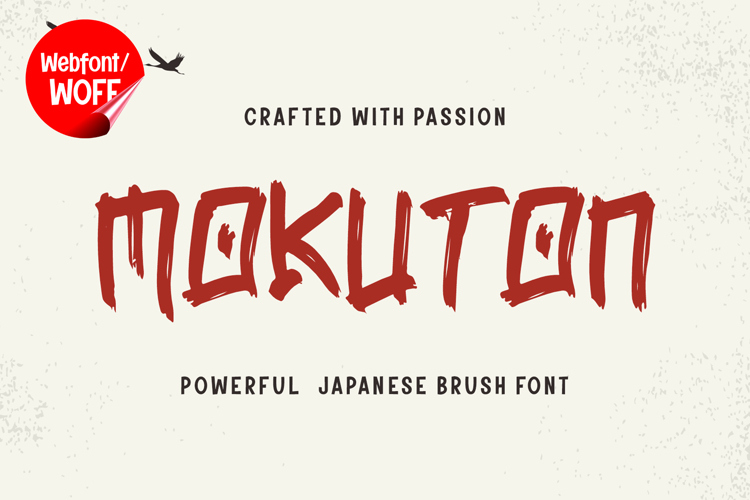
Mokuton Webfont | Japanese Brush Font for Websites
Mokuton Webfont is a bold Japanese handbrush typeface designed to bring expressive brush aesthetics into digital design. Inspired by traditional ink strokes and modern brush lettering, this font combines artistic texture with strong readability, making it an excellent choice for impactful web typography.
In web design, typography plays a crucial role in capturing attention and communicating brand identity. Mokuton is crafted as a display webfont, making it ideal for headlines, hero sections, banners, and promotional content. Its bold brush strokes create a powerful visual presence that instantly stands out.
The font includes uppercase and lowercase characters, offering flexibility for various text compositions. The natural brush style creates a dynamic flow between letters, adding movement and energy to the design. Numbers and punctuation are included and styled consistently with the overall brush aesthetic.
This webfont is ideal for creative websites, restaurant branding, portfolios, streetwear brands, and cultural-themed platforms. Its expressive style helps create a strong emotional connection with users, making the website feel more engaging and visually distinctive.
One of the key strengths of Mokuton in web design is its ability to function as a focal point. When used in headlines, it draws attention and guides users through the layout. This makes it highly effective for call-to-action sections and featured content.
Despite its artistic style, Mokuton maintains readability when used at display sizes. Designers can pair it with simple fonts for body text to create a balanced layout and improve user experience. This combination ensures clarity while preserving visual impact.
The brush texture adds depth and character to web layouts. When combined with modern interactions such as animations or hover effects, the font enhances visual engagement and creates a more immersive experience.
Mokuton also adapts well to different design styles. It can be used in bold, high-contrast layouts or combined with minimal elements for a clean and modern look. This flexibility makes it a valuable tool for designers working on diverse projects.
Overall, Mokuton Webfont transforms simple text into expressive visual elements. It brings the energy of brush lettering into digital design, helping websites stand out and communicate strong visual identity.